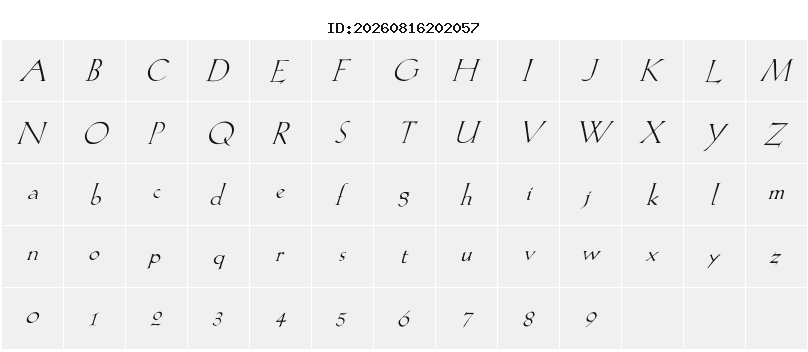
Spaden-Italic Preview
• Font Name: Spaden-Italic
• Full Font Name: Spaden-Italic
• PostScript Name: Spaden-Italic
• Copyright: Spaden-Light 1991 by D. Rakowski. All Rights Reserved.
About Spaden-Italic.ttf
Spaden-Italic.ttf is a modern, elegant sans-serif font designed for ultimate readability and visual harmony. Perfect for branding, headlines, web design, and print materials.